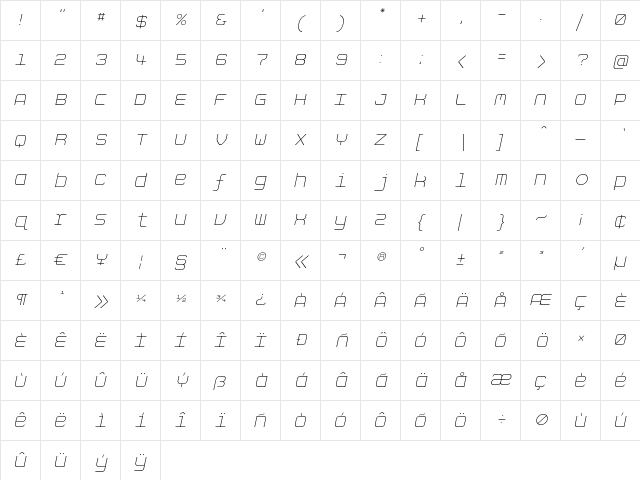
Aspirin-Refill-Dazed Regular
Design Context for Aspirin-Refill-Dazed Typeface
Aspirin-Refill-Dazed offers clean, dependable letterforms without strong stylistic allegiance, making it a practical choice for designers who need flexibility.
Pro Tip: Use Aspirin-Refill-Dazed in both headline and body roles to test its range before committing to a single application.